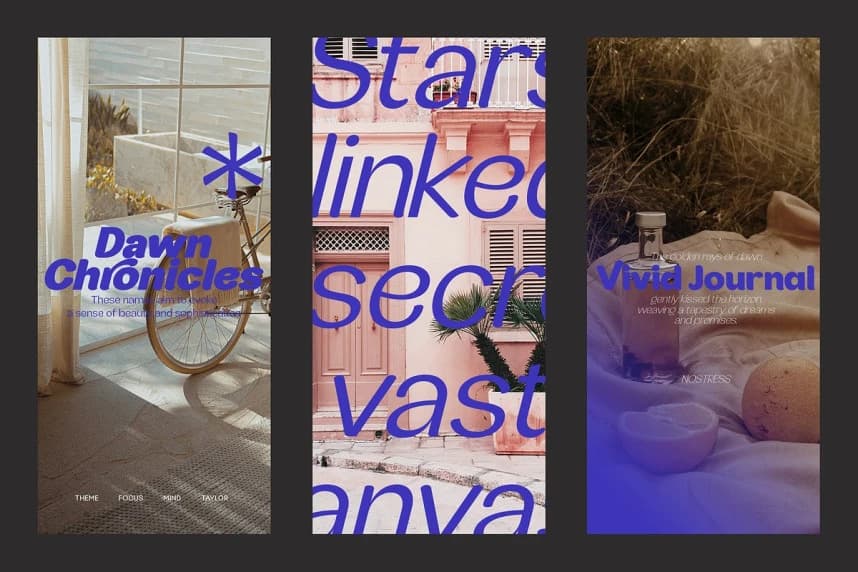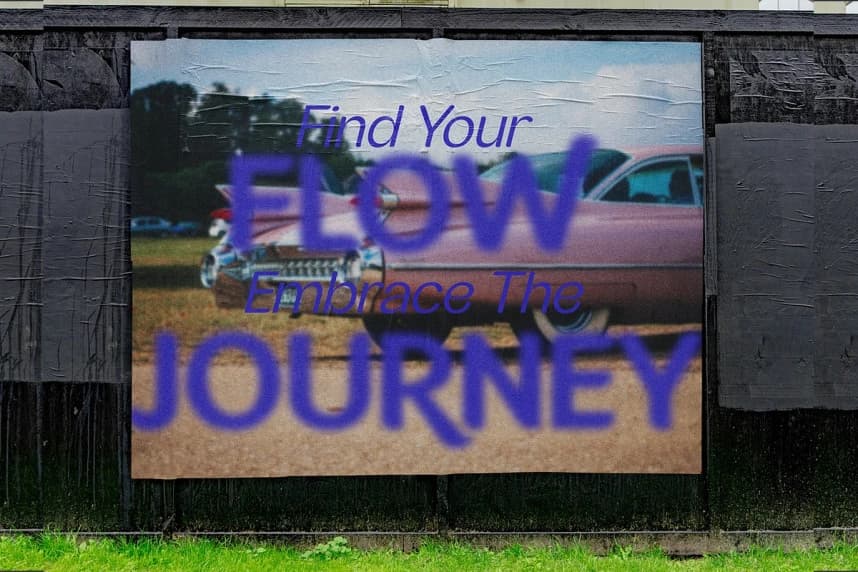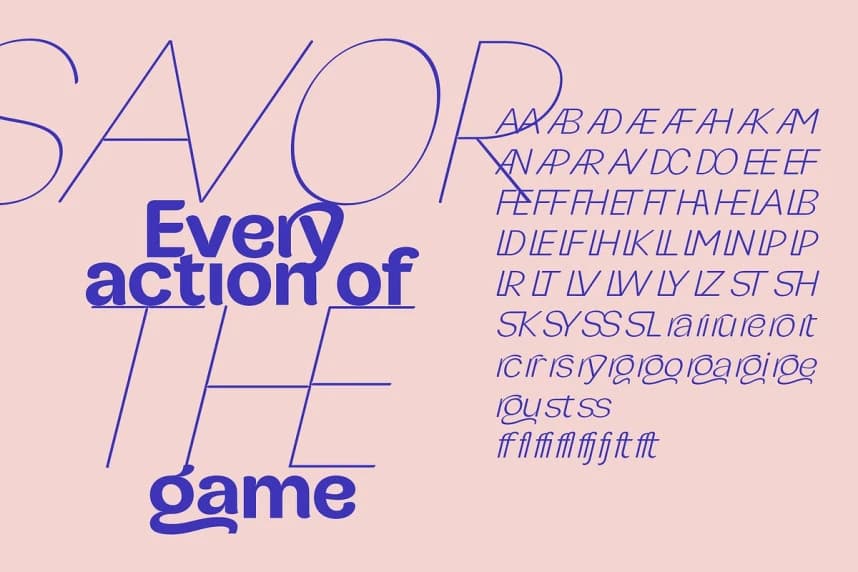
JHC Rasbora Font
JHC Rasbora Font is a beautifully crafted typeface that exudes a soft and relaxed character. This font features a unique feeling curve in its letterforms, which gives it a gentle, flowing quality that is both inviting and versatile.